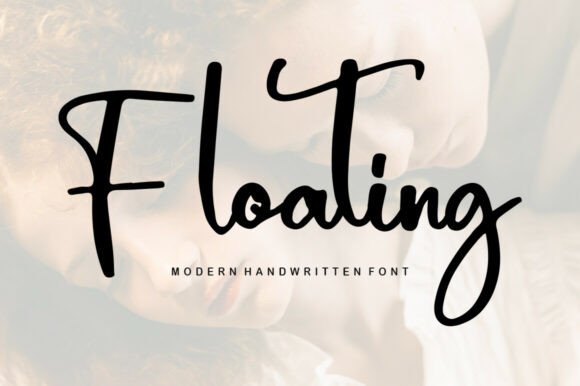
The Magic of Floating Font: A Designer’s Delight
I’ll never forget the time I was working on a branding project for a new coffee shop. I had a clear vision of the look and feel I wanted to achieve, but something was missing. As I scrolled through font after font, none seemed to capture the whimsical, yet elegant vibe I was going for. That’s when I stumbled upon Floating Font, and it was love at first sight! 💫
A Personal Review of Floating Font
As a designer, I’m always on the lookout for fonts that can elevate my work and make it stand out. Floating Font has become a staple in my font library, and here’s why:
- ✨ Unique and beautiful touch: Every letter has a distinctive character that adds a touch of personality to any design.
- ✅ Timeless elegance: Floating Font has a classic, handwritten feel that never goes out of style.
- 💫 Versatility: It’s perfect for creating eye-catching logos, branding materials, and quotes.
While Floating Font is an amazing addition to any design project, there are a few things to keep in mind:
- ⚠️ Limited use in very formal or corporate settings: Floating Font is best suited for creative, artistic, or whimsical projects.
- 🤔 Some letters may require adjusting: As with any handwritten font, some letters may need a bit of tweaking to get the perfect spacing or alignment.
- Experiment with OpenType features, such as ligatures and stylistic alternates, to add more personality to your text.
The Story Behind Floating Font
Floating Font was designed with love and care by a talented type designer who wanted to create a font that would bring a touch of magic to any design project. With its unique and beautiful touch, Floating Font has become a favorite among designers and crafters alike.
| Font Name | Floating Font |
| Author | Daily Design |
| What is Floating Font best suited for? | Floating Font is perfect for creating eye-catching logos, branding materials, and quotes. |
| Is Floating Font suitable for body text? | While Floating Font is beautiful, it’s best suited for headlines, titles, or short paragraphs. For body text, a clearer font may be more suitable. |